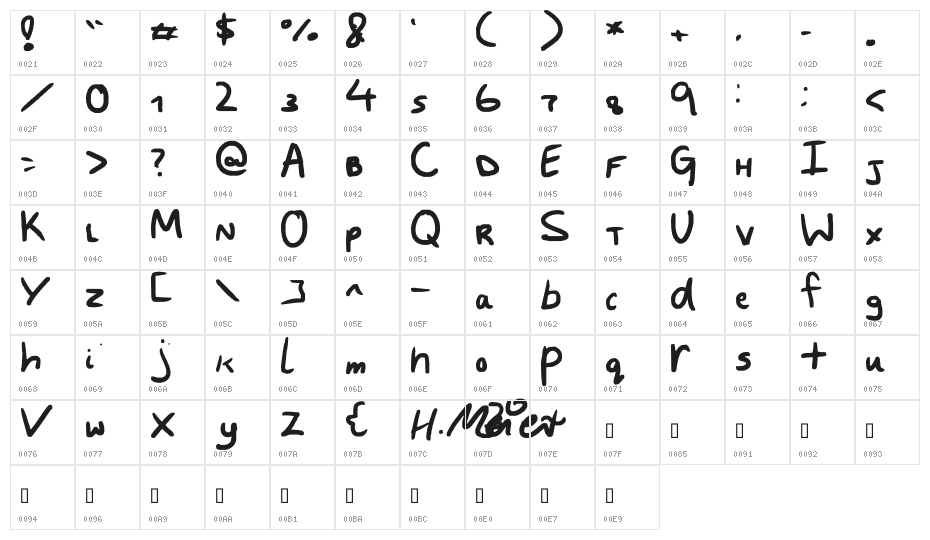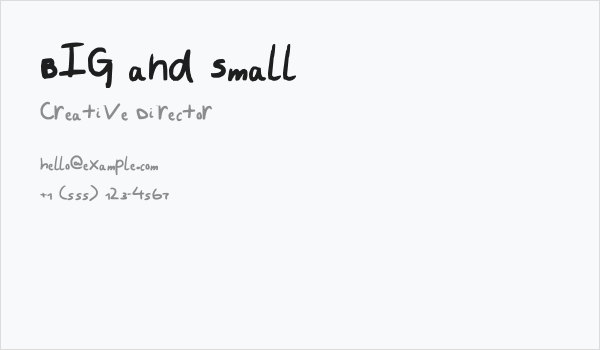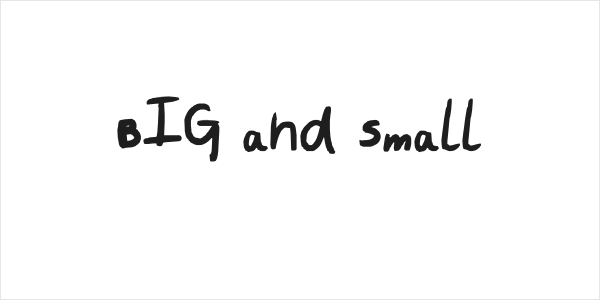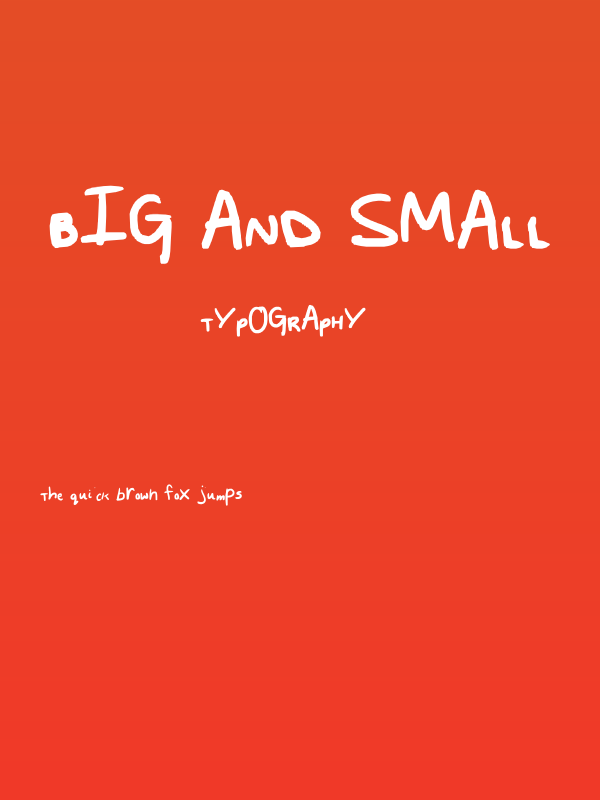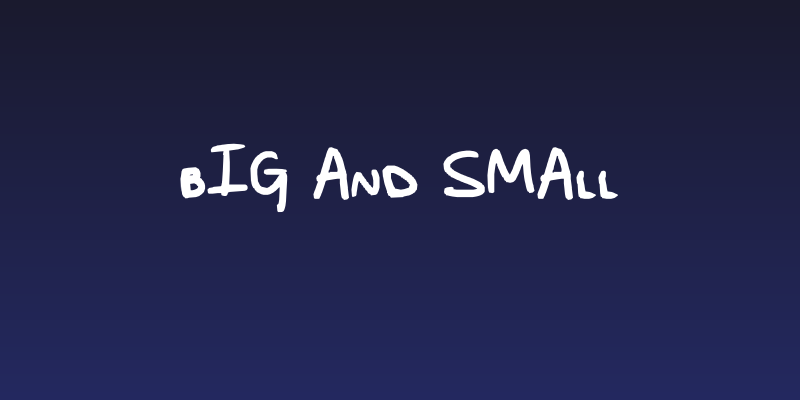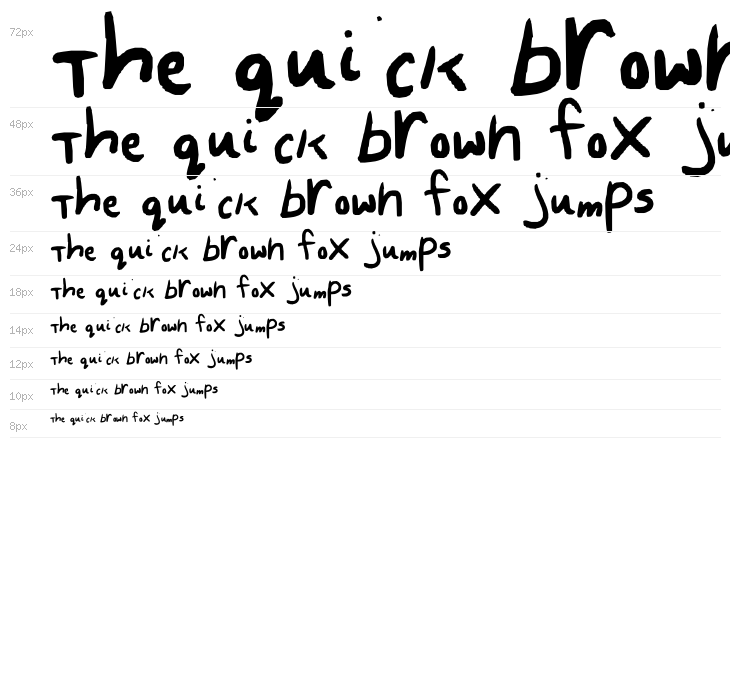
BIG and small Font
BIG and small Description
This font exhibits a playful and informal handwritten style, characterized by its uneven strokes and varying character sizes. The letters have a casual, almost childlike appearance, with a mix of uppercase and lowercase forms that add to its whimsical nature. The strokes are bold and slightly irregular, giving the font a dynamic and lively feel. The numbers and special characters maintain this informal style, making the font suitable for creative and fun projects.
BIG-AND-SMALL UPPERCASE
BIG-AND-SMALL LOWERCASE
BIG-AND-SMALL OTHER CHARS
| Overall Style | Playful, Informal |
| Use Case | Headlines, Casual text, Creative projects |
| Proposed Projects | Ideal for children's books, casual invitations, greeting cards, and playful branding. |